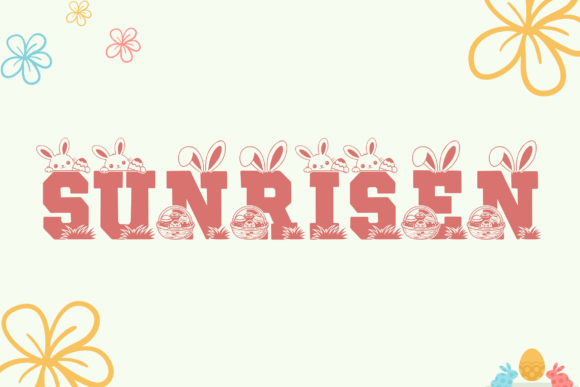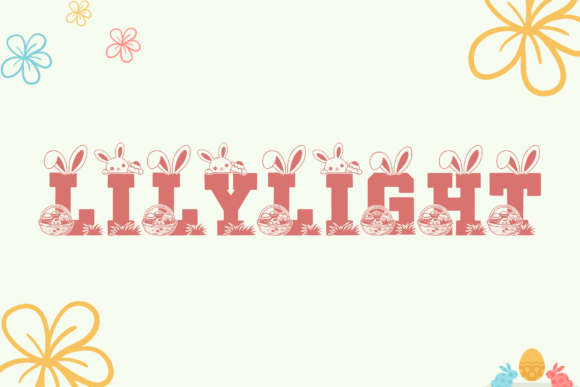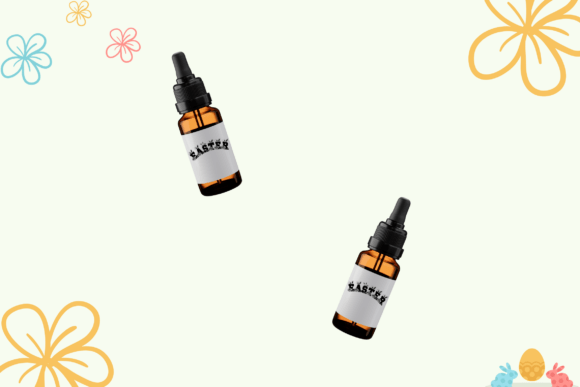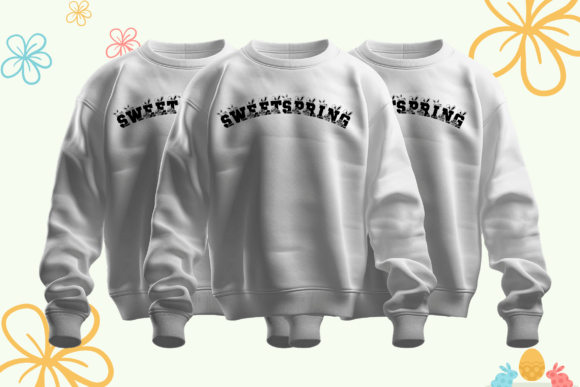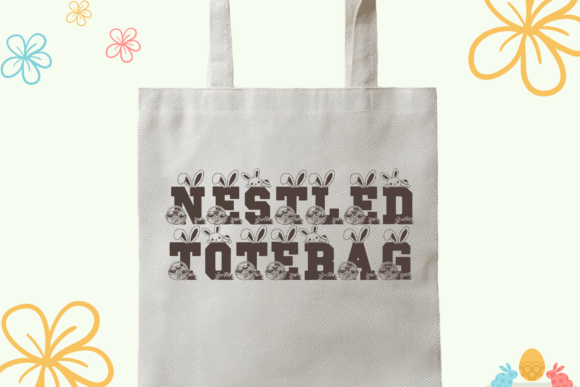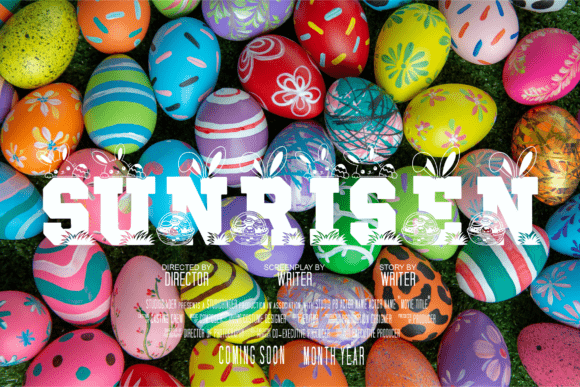
Meet Blockton Easter, the Bold Easter Display Font
Are you looking for a font that can add a cheerful Easter spirit to your designs? Look no further than Blockton Easter, a bold block display font that’s perfect for spring designs. In this article, we’ll take a closer look at Blockton Easter and explore its features, benefits, and uses.
What is Blockton Easter Font?
Blockton Easter is a bold block display font designed specifically for Easter and spring designs. It builds on the strong, chunky structure of the original Blockton font, adding a light, friendly seasonal feel that’s perfect for Easter cards, gift tags, posters, classroom decor, packaging, stickers, and seasonal branding.
Key Features of Blockton Easter Font
- Thick and well-balanced letterforms: The letterforms in Blockton Easter are thick and well-balanced, making them clear and readable at any size.
- Solid shapes for clean cuts and prints: The solid shapes of Blockton Easter cut and print cleanly for vinyl, stickers, laser projects, and screen printing.
- Simple and predictable block structure: The block structure of Blockton Easter is simple and predictable, making it easy to work with and layout designs quickly.
- Bold style for attention-grabbing designs: The bold style of Blockton Easter helps your products catch attention in seasonal listings, setting it apart from delicate script Easter fonts.
Why Choose Blockton Easter Font?
So, why should you choose Blockton Easter font for your Easter designs? Here are just a few reasons:
- Perfect for Easter designs: Blockton Easter is designed specifically for Easter and spring designs, making it a great choice for anyone looking for a font that captures the spirit of the season.
- Versatile and flexible: Blockton Easter can be used for a wide range of designs, from Easter cards and gift tags to posters, classroom decor, packaging, stickers, and more.
- High-quality and durable: The solid shapes of Blockton Easter make it perfect for cutting and printing, ensuring high-quality and durable designs.
- Use it for a variety of designs: Use Blockton Easter for a wide range of designs, from Easter cards and gift tags to posters, classroom decor, packaging, stickers, and more.
In conclusion, Blockton Easter font is a bold and cheerful Easter display font that’s perfect for spring designs. With its thick and well-balanced letterforms, easy installation and use, solid shapes for clean cuts and prints, simple and predictable block structure, and bold style for attention-grabbing designs, Blockton Easter is a great choice for designers and crafters looking for a high-quality and versatile font.